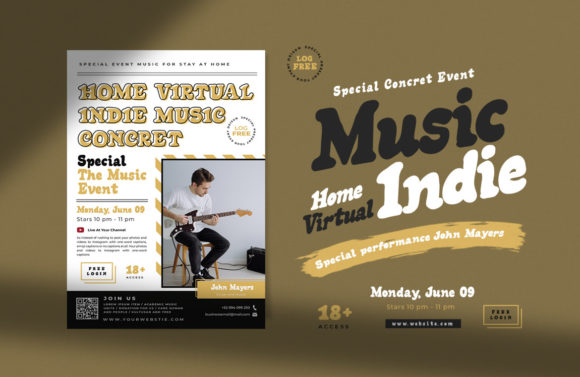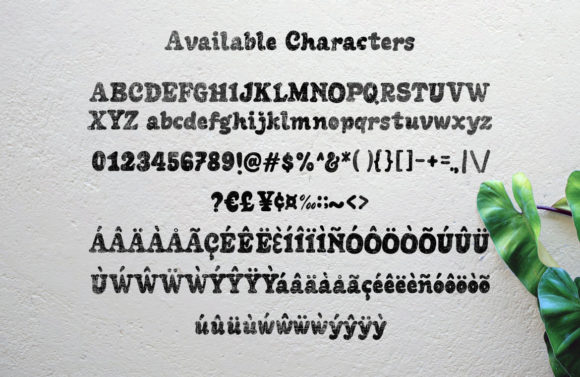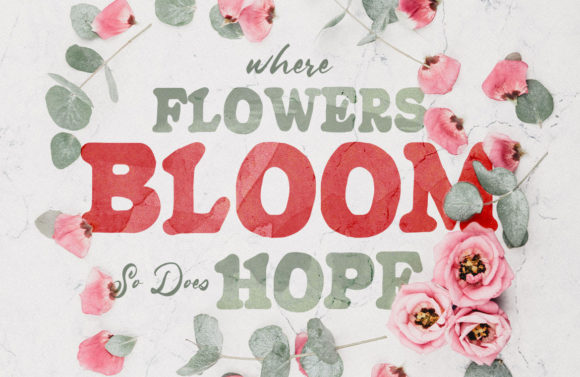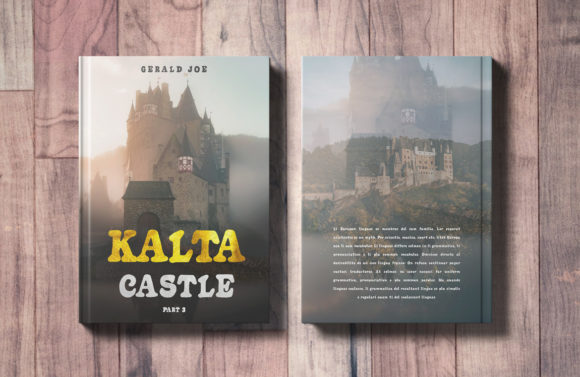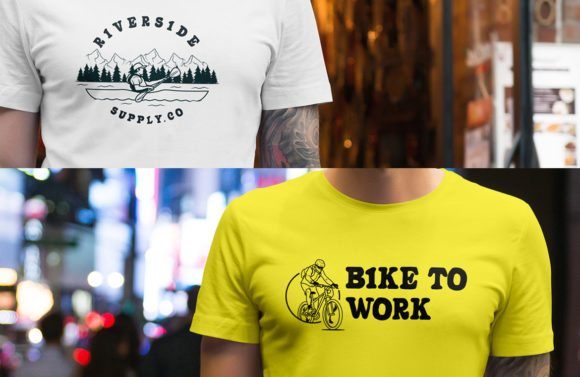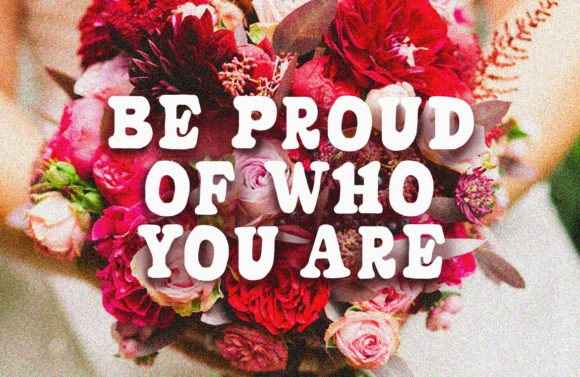
Begonia Font: Elevate Your Designs with a Bold and Vintage Touch
In the world of typography, a font can make or break a design. It’s the perfect combination of style, elegance, and personality that can elevate a creation from ordinary to extraordinary. If you’re a designer or crafter looking to add a touch of sophistication and vintage charm to your work, look no further than the Begonia font. This bold and vintage-looking serif font is an incredibly valuable asset to any font library, and we’re excited to dive into its features and benefits.
The Characteristics of Begonia Font
Begonia font is a serif font that exudes a sense of classic elegance and sophistication. Its bold and sturdy design makes it perfect for headlines, titles, and any other text that needs to make a statement. The font’s vintage look and feel are reminiscent of classic typography from the early 20th century, evoking a sense of nostalgia and timelessness. With its perfectly crafted serifs and elegant lines, Begonia font is sure to add a touch of refinement to any design.
Why Begonia Font is a Valuable Asset
So, what makes Begonia font such a valuable asset to your font library? Here are just a few reasons why designers and crafters love this font:
- Versatility: Begonia font is incredibly versatile, making it suitable for a wide range of design projects. Whether you’re working on a logo, brochure, poster, or website, this font will help you create stunning text that grabs attention.
- Readability: Despite its bold design, Begonia font is surprisingly readable, even at smaller sizes. This makes it perfect for body text, captions, and other applications where legibility is crucial.
- Elegance: Begonia font has an undeniable air of elegance and sophistication, making it perfect for high-end brands, luxury products, and refined designs.
- Uniqueness: While Begonia font has a classic look and feel, it’s not a generic or overused font. Its unique design ensures that your work will stand out from the crowd and leave a lasting impression.
How to Use Begonia Font in Your Designs
Now that we’ve covered the benefits of Begonia font, let’s explore some practical ways to use it in your designs:
- Headlines and Titles: Use Begonia font to create bold and eye-catching headlines that grab attention and set the tone for your design.
- Logos and Branding: Begonia font is perfect for logos, wordmarks, and other branding applications where a touch of elegance and sophistication is desired.
- Posters and Flyers: Add a vintage touch to your posters and flyers with Begonia font, which works beautifully for titles, subtitles, and body text.
- Web Design: Use Begonia font to create stunning website headers, titles, and other text elements that showcase your brand’s personality and style.
Tips for Pairing Begonia Font with Other Fonts
While Begonia font is stunning on its own, pairing it with other fonts can create a truly unique and harmonious design. Here are some tips for pairing Begonia font with other fonts:
- Contrasting Fonts: Pair Begonia font with a clean and minimalist sans-serif font, such as Open Sans or Lato, to create a beautiful contrast between bold and elegant.
- Script Fonts: Combine Begonia font with a elegant script font, such as Pacifico or Great Vibes, to add a touch of sophistication and refinement.
- Serif Fonts: Pair Begonia font with another serif font, such as Georgia or Merriweather, to create a cohesive and harmonious design.
In conclusion, Begonia font is a bold and vintage-looking serif font that can elevate any design with its elegance, sophistication, and versatility. Whether you’re a designer, crafter, or DIY enthusiast, this font is an incredibly valuable asset to your font library. With its readability, uniqueness, and timeless charm, Begonia font is sure to become a go-to choice for any project that requires a touch of classic elegance and refinement.